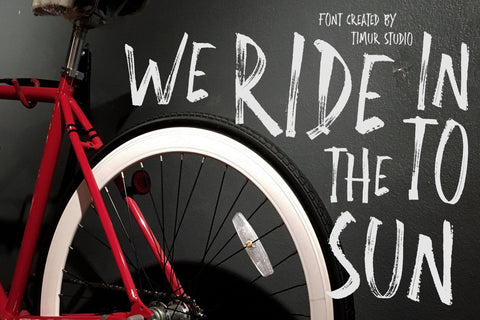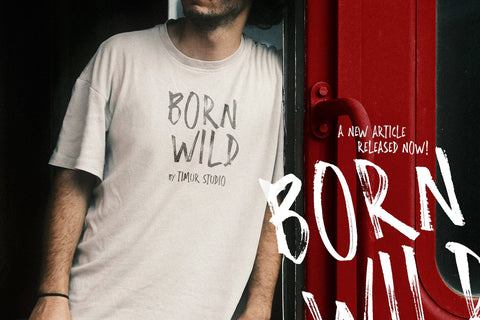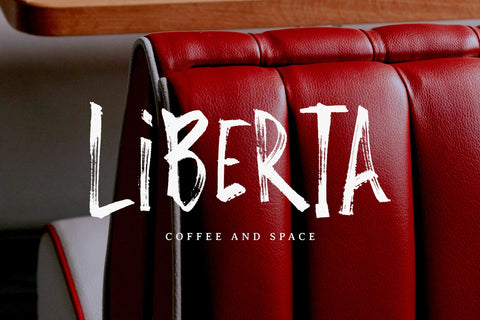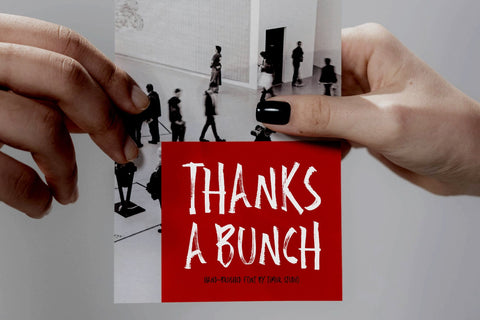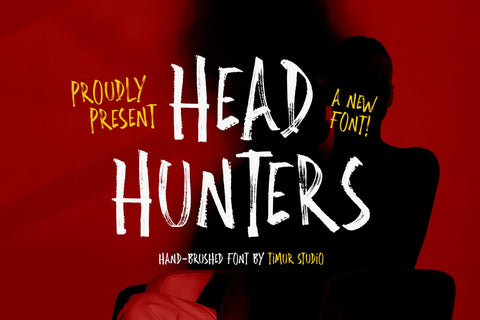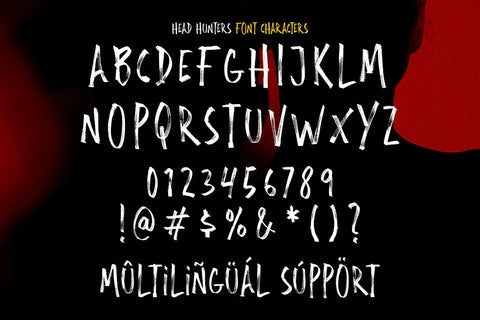
Head Hunters - Hand-Brushed Font
Head Hunters is a Hand-Brushed Font
Head Hunters is a bold and edgy hand-brushed font with raw, expressive strokes that give it a rebellious, street-style feel. Perfect for posters, logos, album covers, and urban branding, this typeface captures energy and attitude with every letter.
Head Hunters Font also supports multilingualism